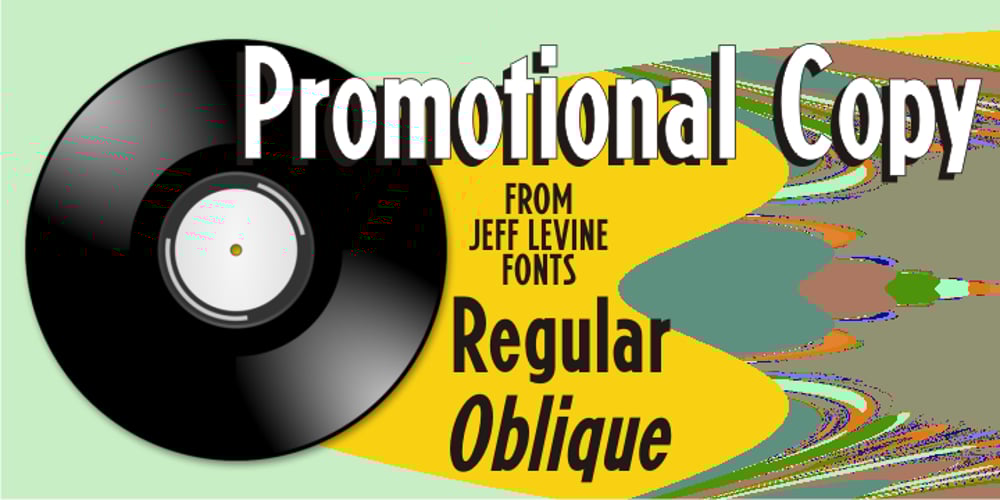
Promotional Copy JNL
Promotional Copy JNL font
Promotional Copy JNL Font Family was designed by Jeff Levine and published by Jeff Levine. Promotional Copy JNL contains 2 styles and family package options. The typeface which inspired Promotional Copy JNL can be found on hundreds of 45 rpm records from the 50s through the 80s, as well as in headlines from articles found in one of the music industry’s leading publications throughout their older issues – it was a favorite and a workhorse. Now’s your chance to create a facsimile of the record label you always wanted to have with your garage band… or at the very least, utilize this font for some clean and crisp text or headline projects.